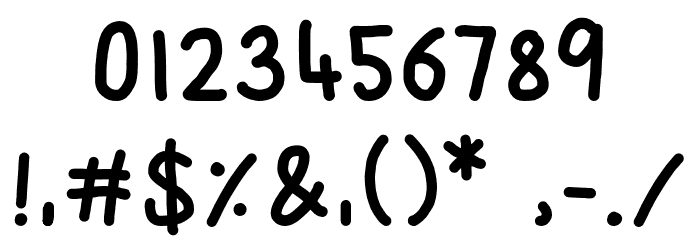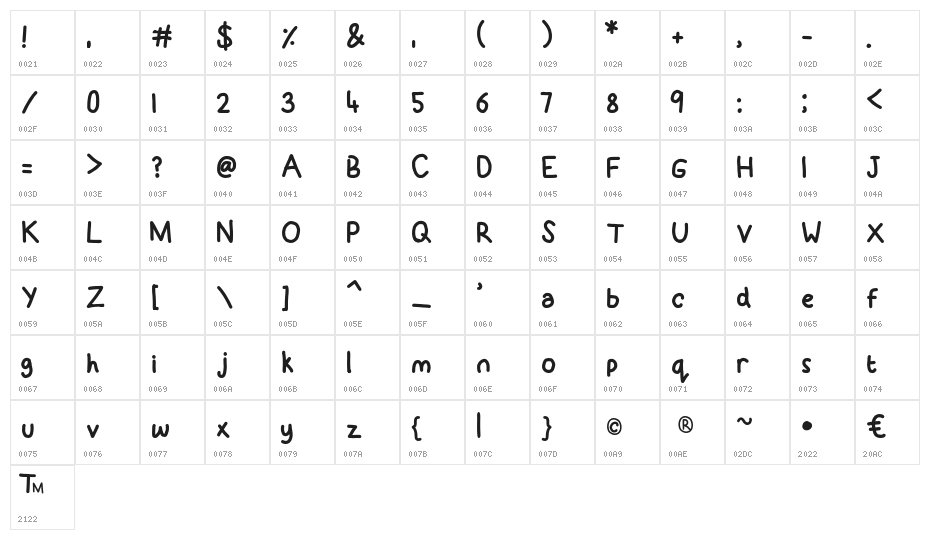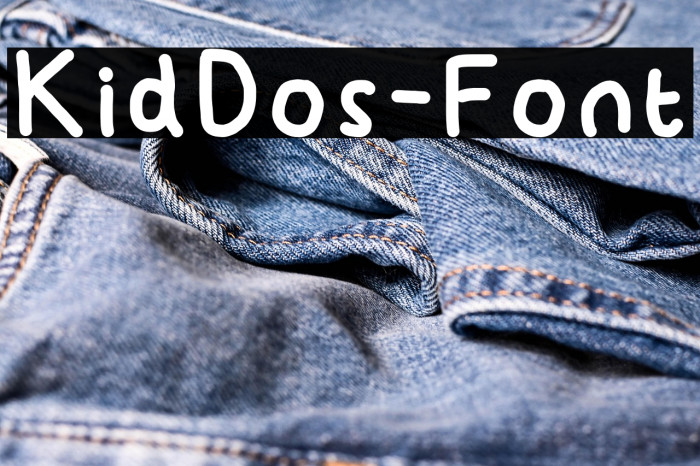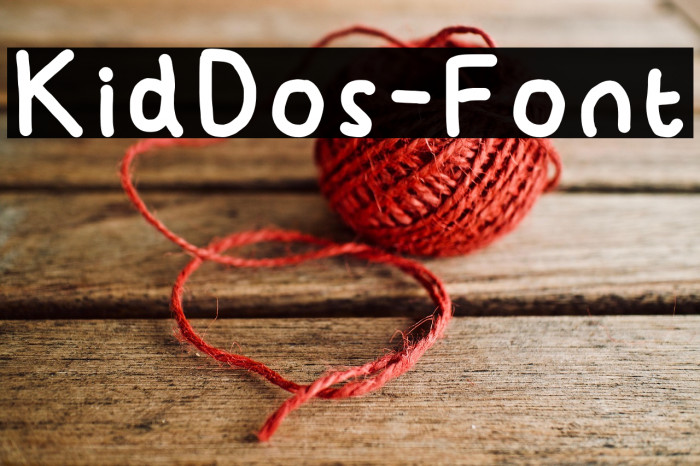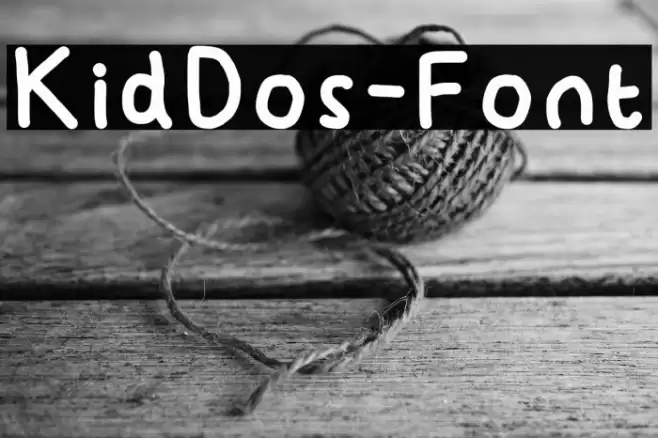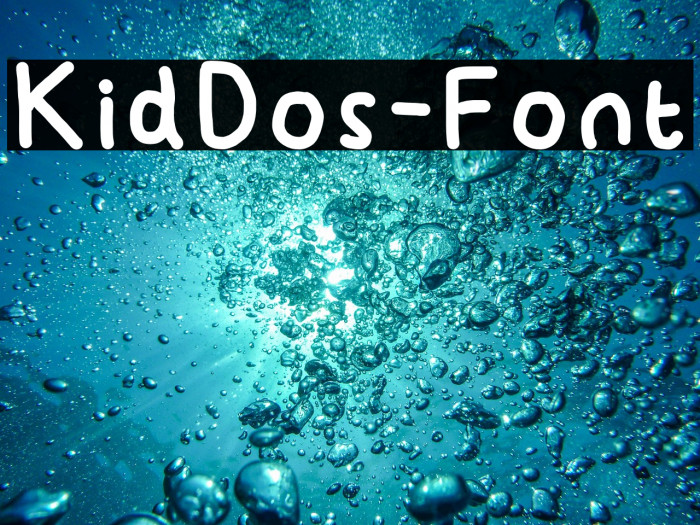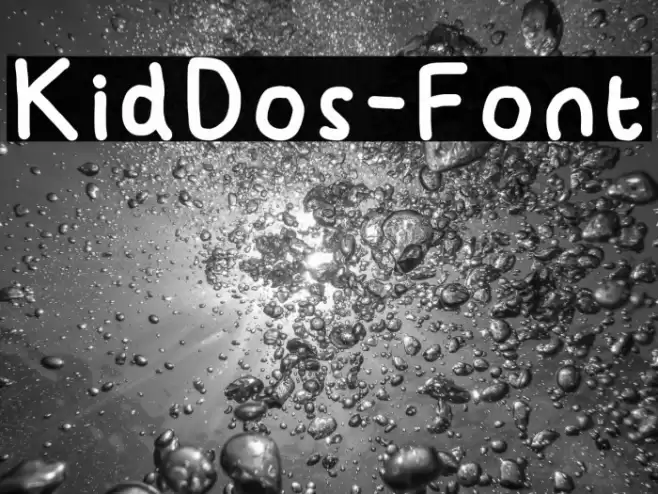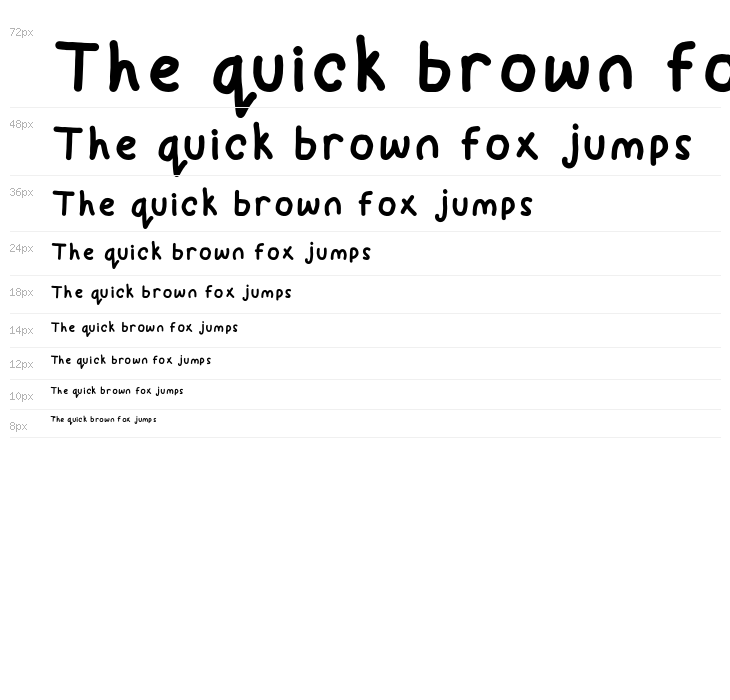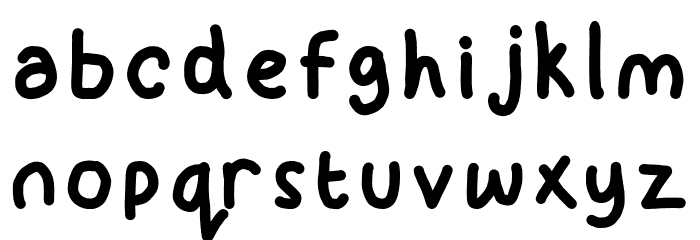
KidDos-Font Font
KidDos-Font Description
This playful and whimsical font features a handwritten style that exudes a sense of fun and creativity. The characters are rounded and slightly irregular, giving them a childlike charm that is both approachable and friendly. The uppercase and lowercase letters maintain a consistent style, with a slight tilt that adds to the informal and casual feel. The numbers and special characters are designed to match the playful aesthetic, making this font ideal for projects that require a touch of personality and warmth. Its unique style makes it stand out, perfect for capturing attention in a lighthearted manner.